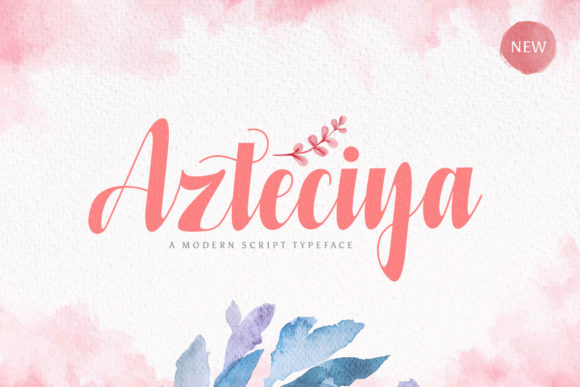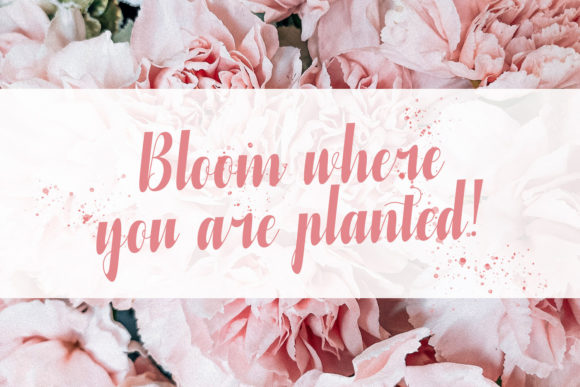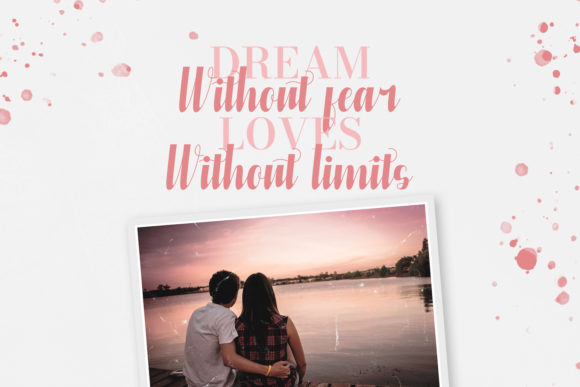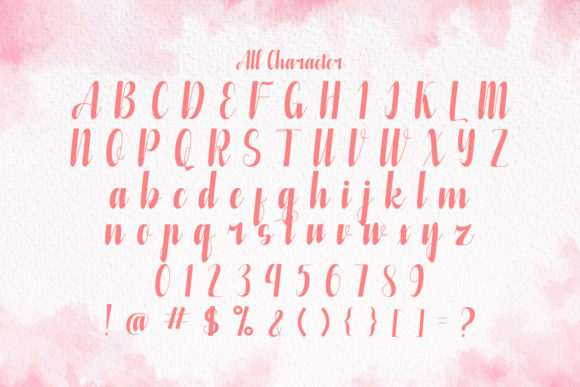
About Azteciya Font
Azteciya is a delicate, well-balanced and adaptable handwritten font. It has beautiful characters and as a result, it matches a wide pool of designs. Add it to your most creative ideas and notice how it makes them come alive!